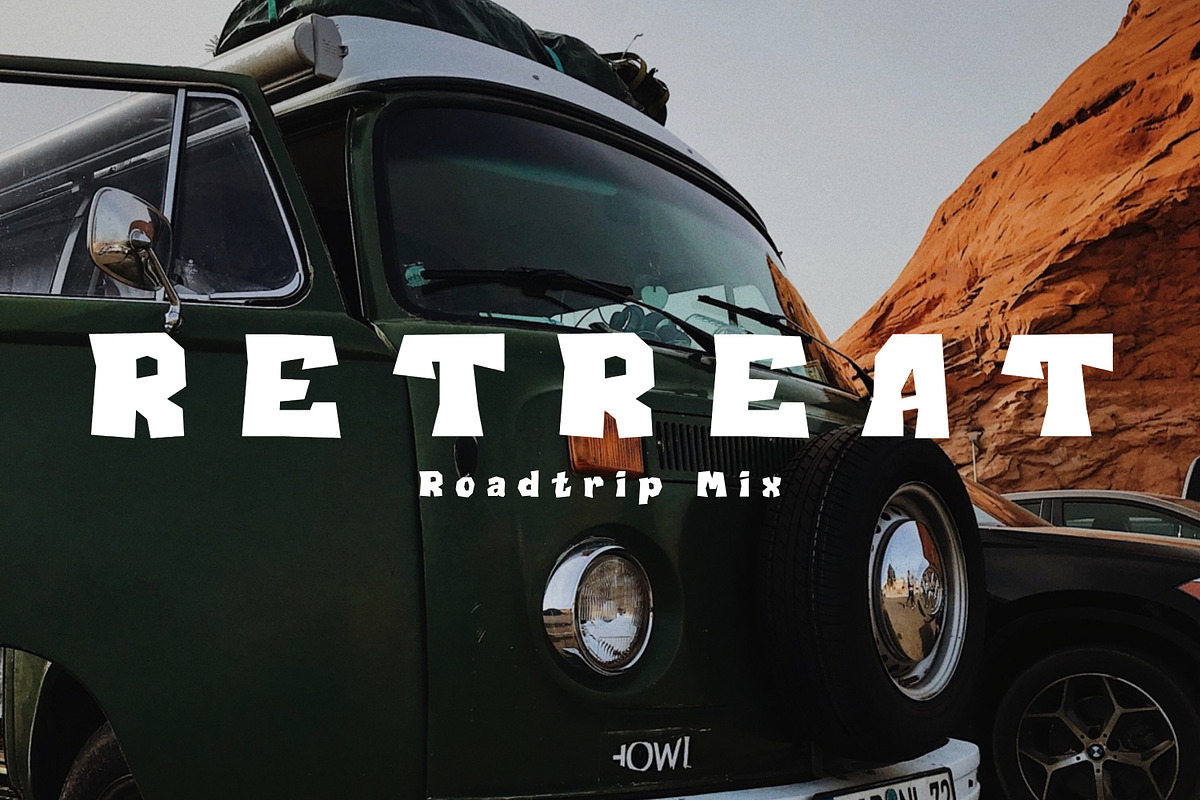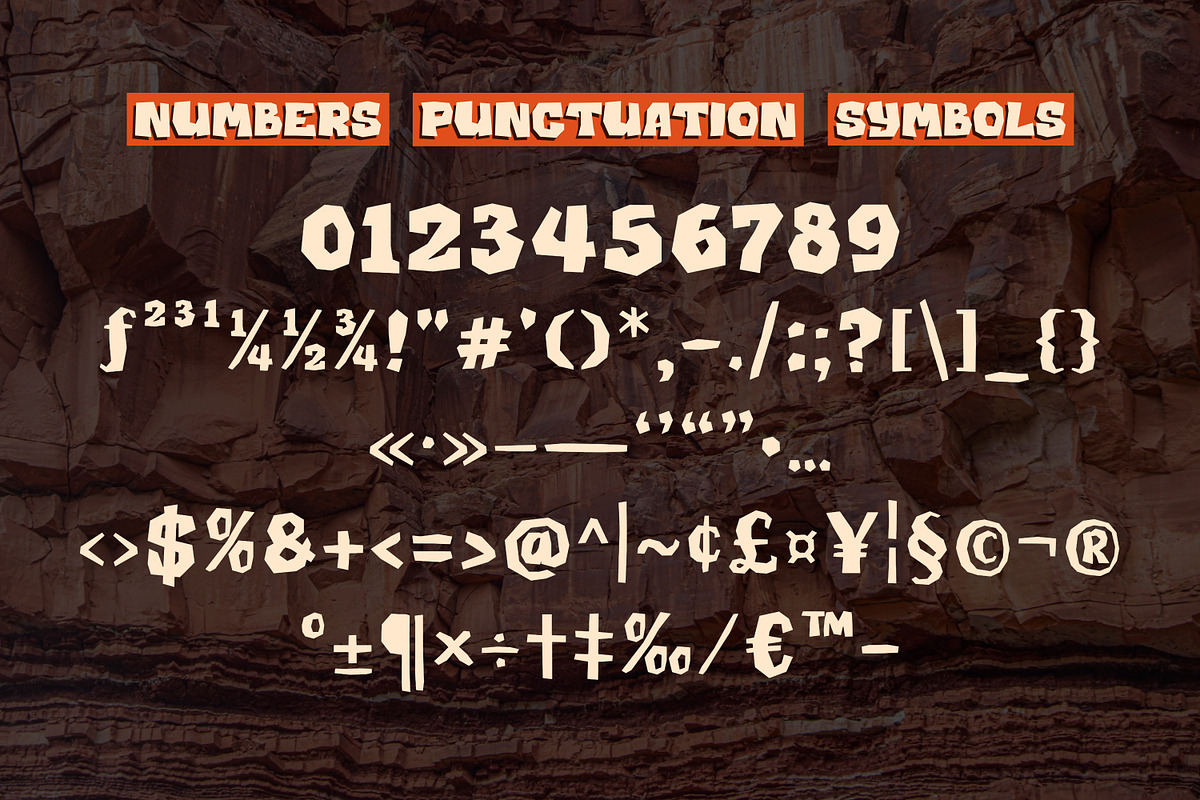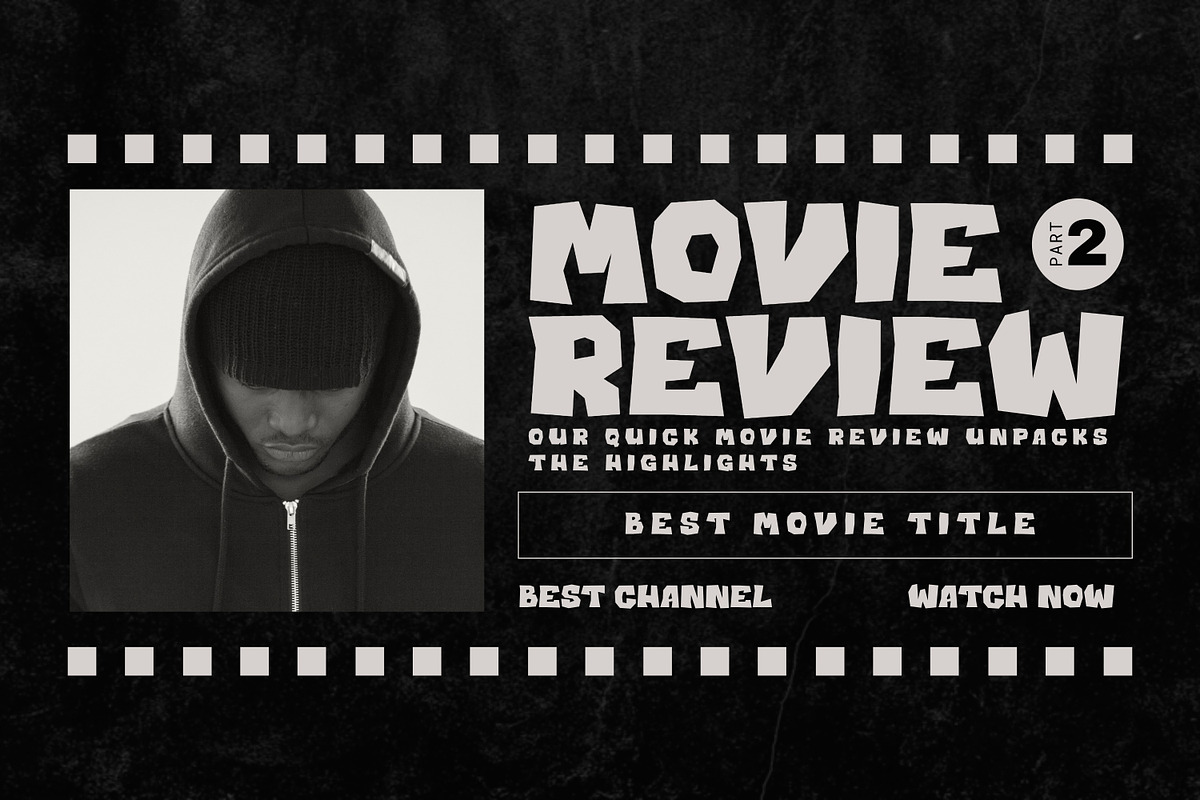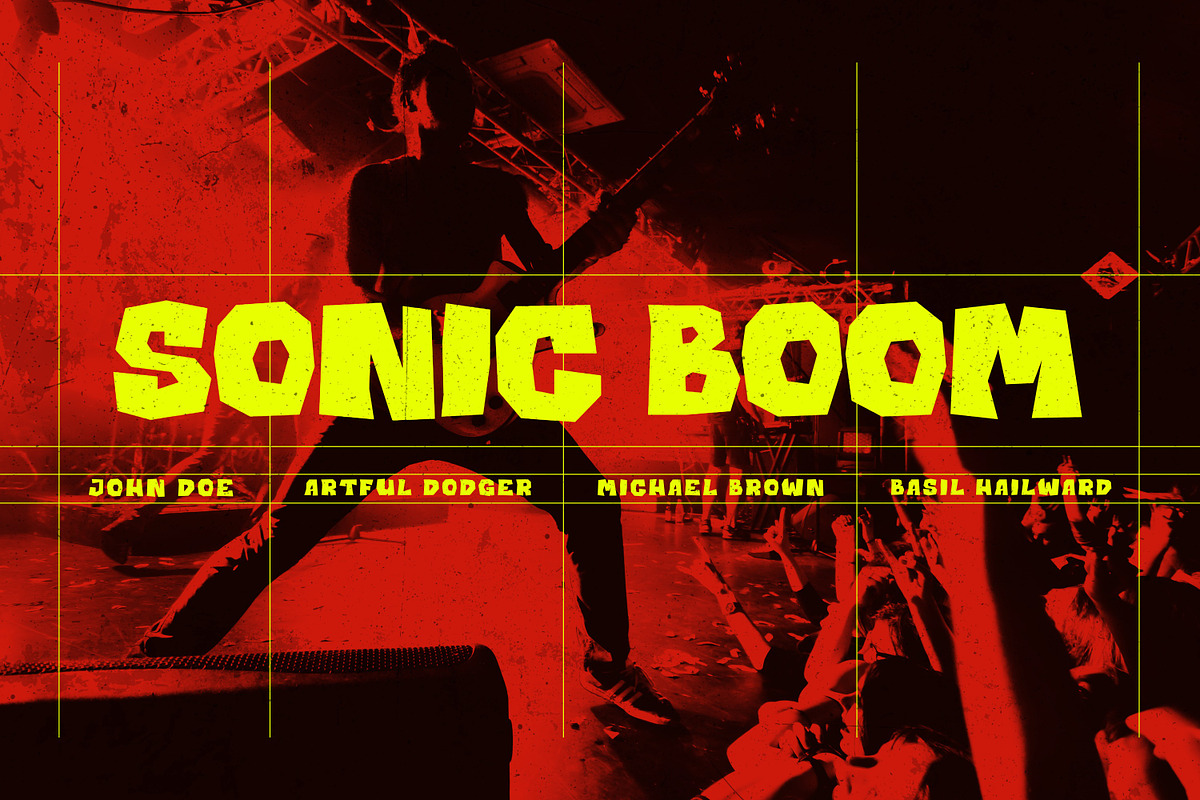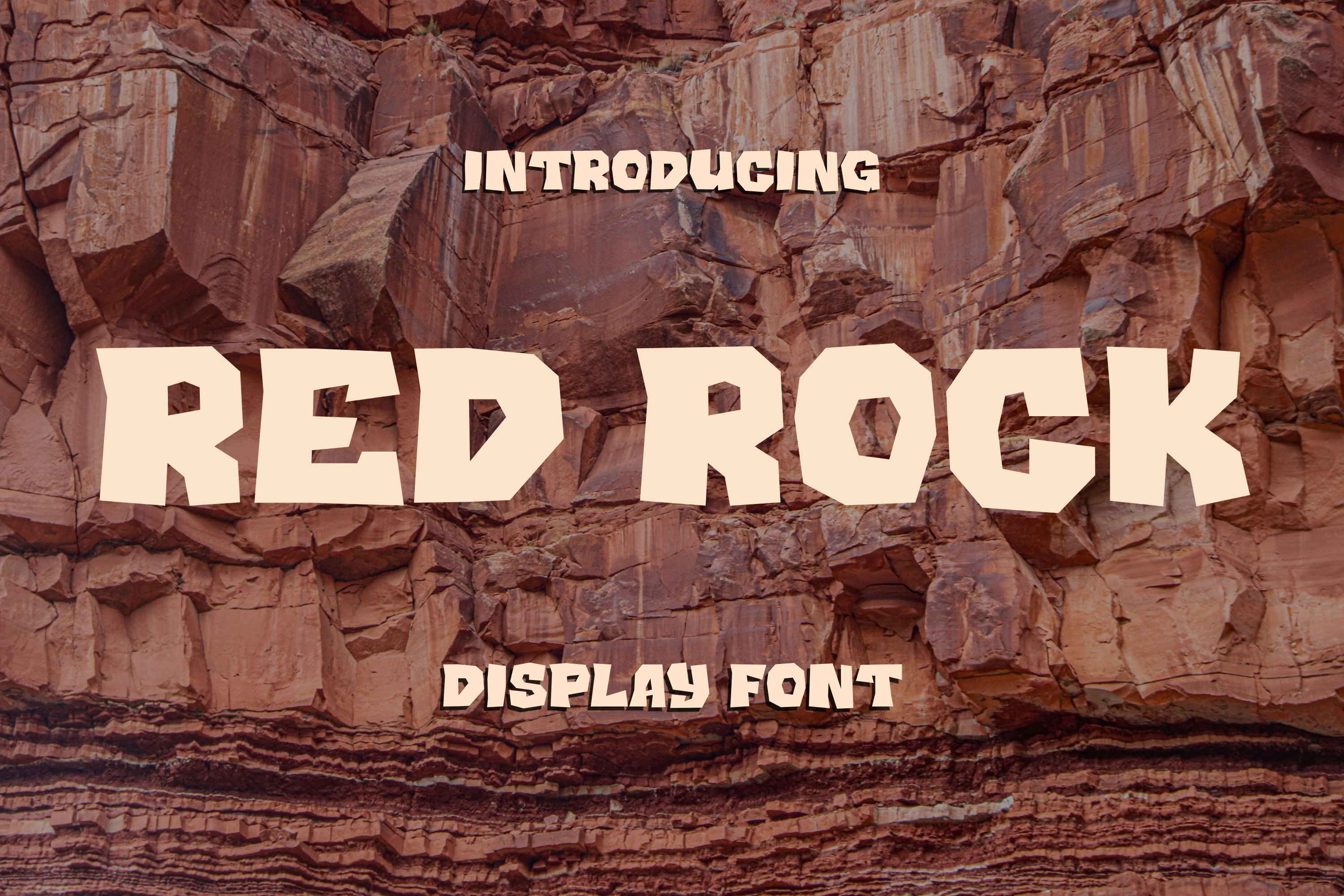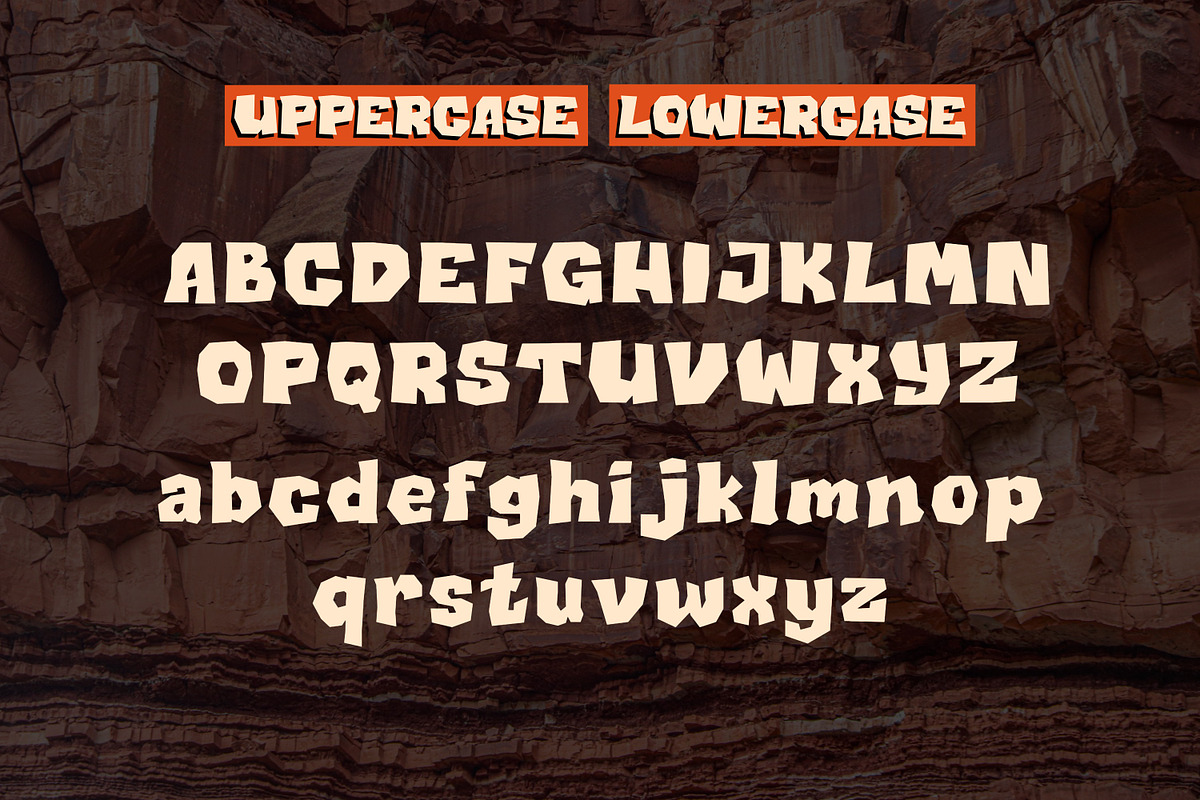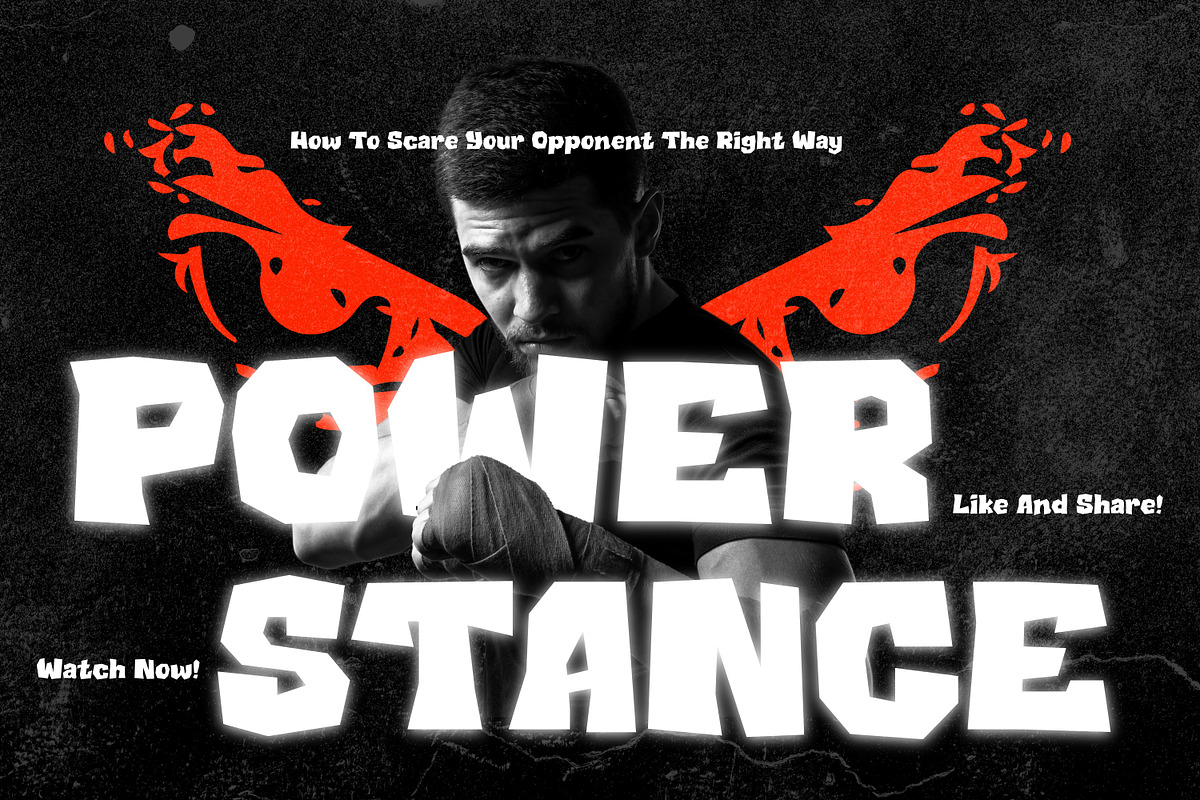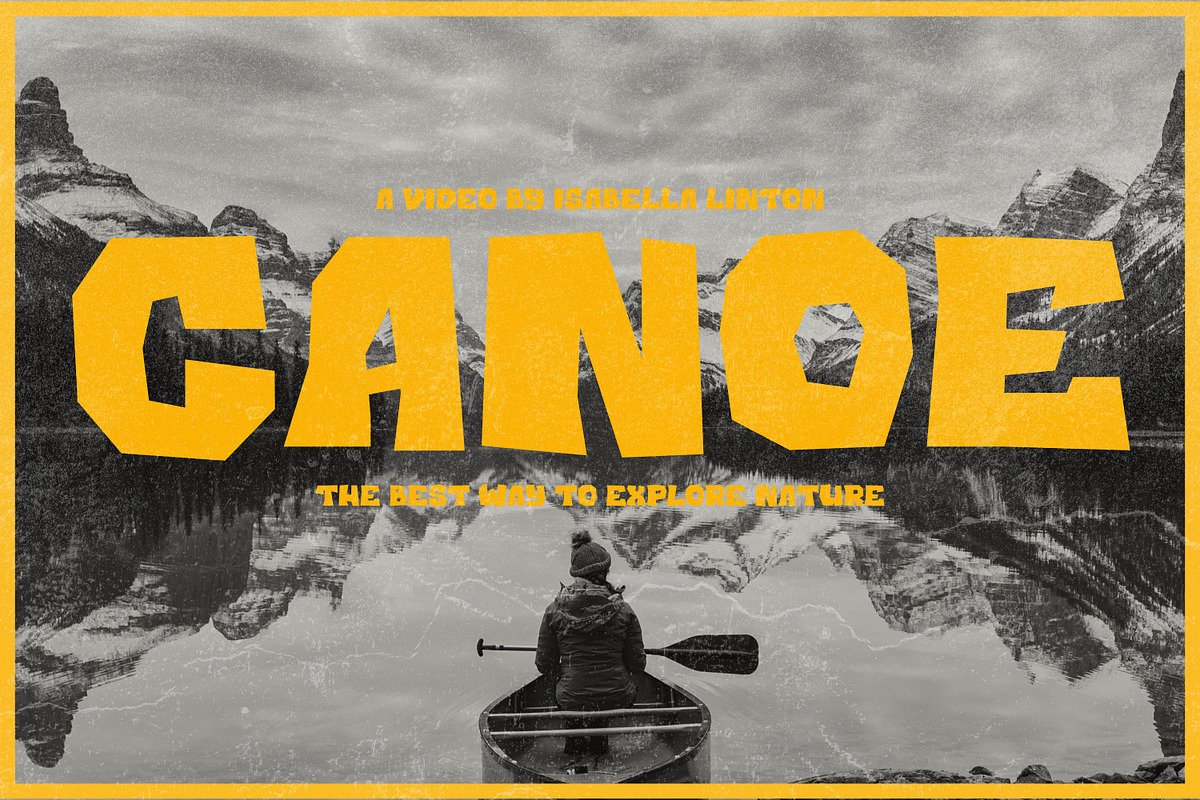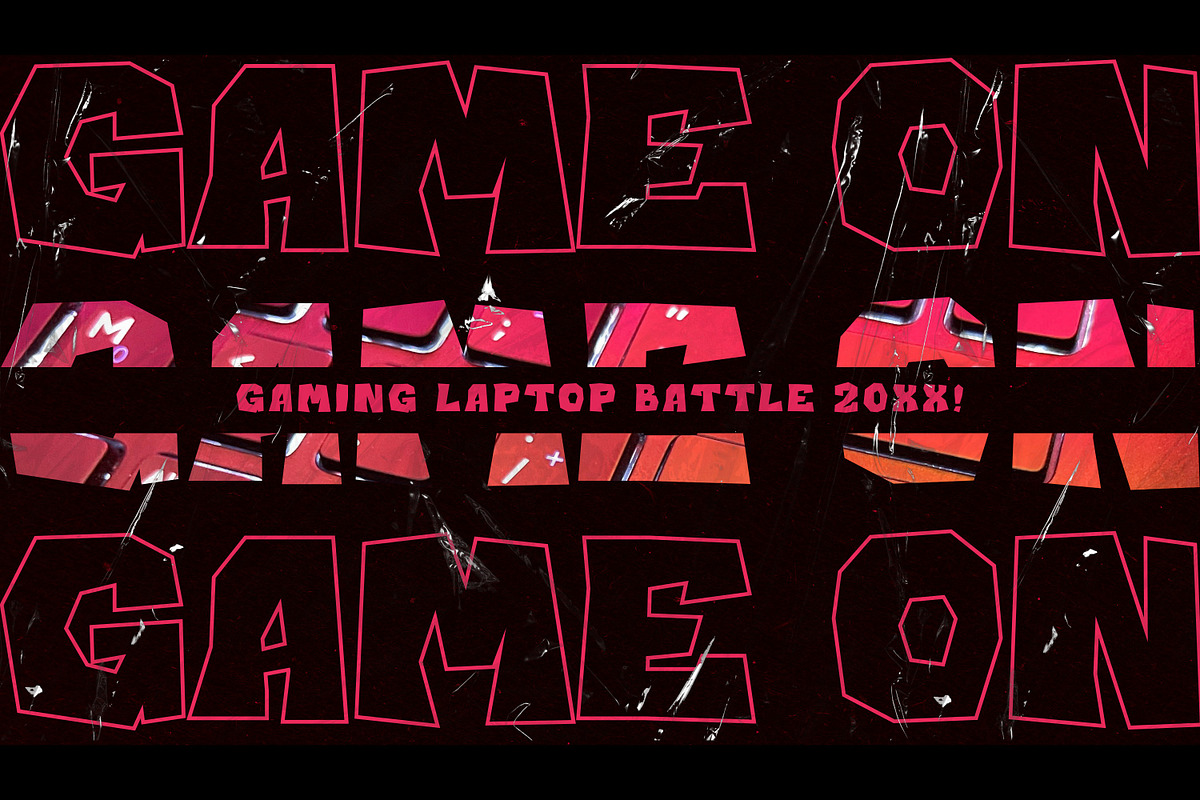
Red Rock A Bold Rugged Display Font
Red Rock is a heavy, bold display font inspired by the raw power and solid structure of natural rock formations. Featuring thick, carved-like letterforms with sharp, geometric cuts, this typeface commands attention with its rugged and unbreakable presence.
Built to make headlines pop, Red Rock brings a fearless and grounded energy to your designs. It is the perfect choice for outdoor adventure branding, extreme sports graphics, rustic badge logos, action movie posters, gaming titles, and bold merchandise that needs a strong, solid aesthetic.
Standard Character Set (Uppercase & Lowercase)
Numbers, Punctuation & Symbols
Outdoor, Hiking, & Adventure
Extreme Sports Logos & Event Flyers
Action & Thriller Movie Posters
Gaming Headers & Esports Branding
Rustic Badges, Labels, & Product Packaging